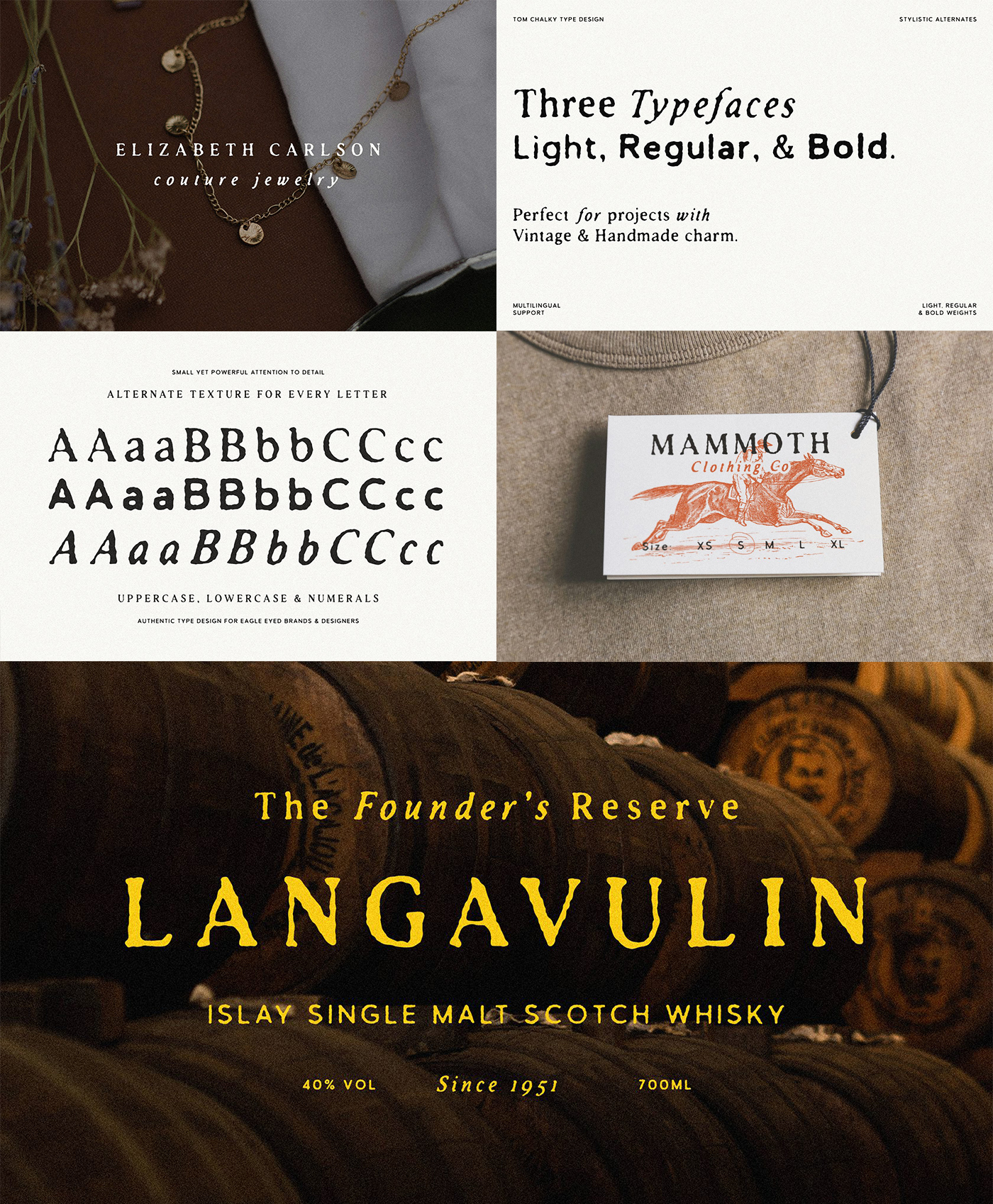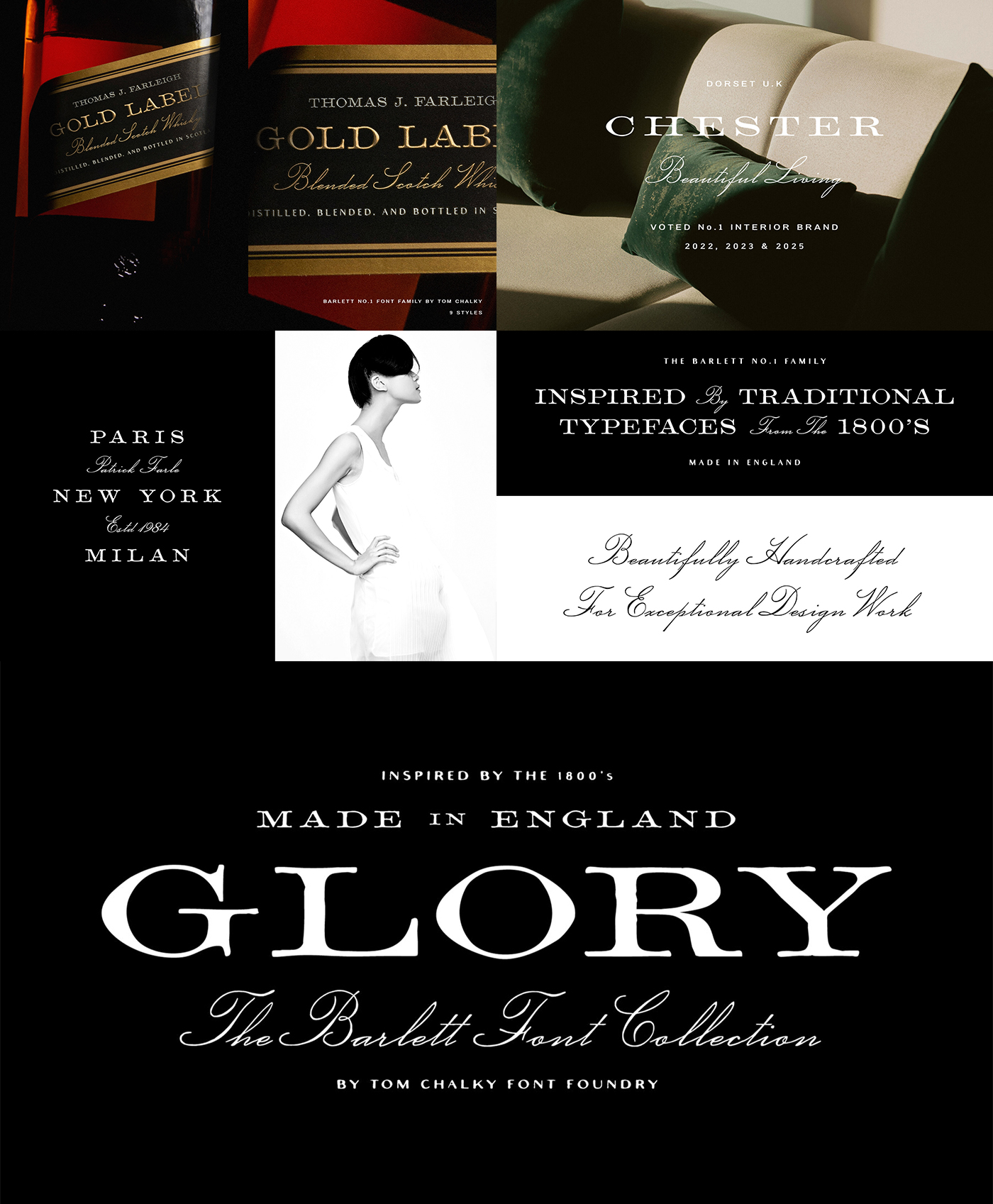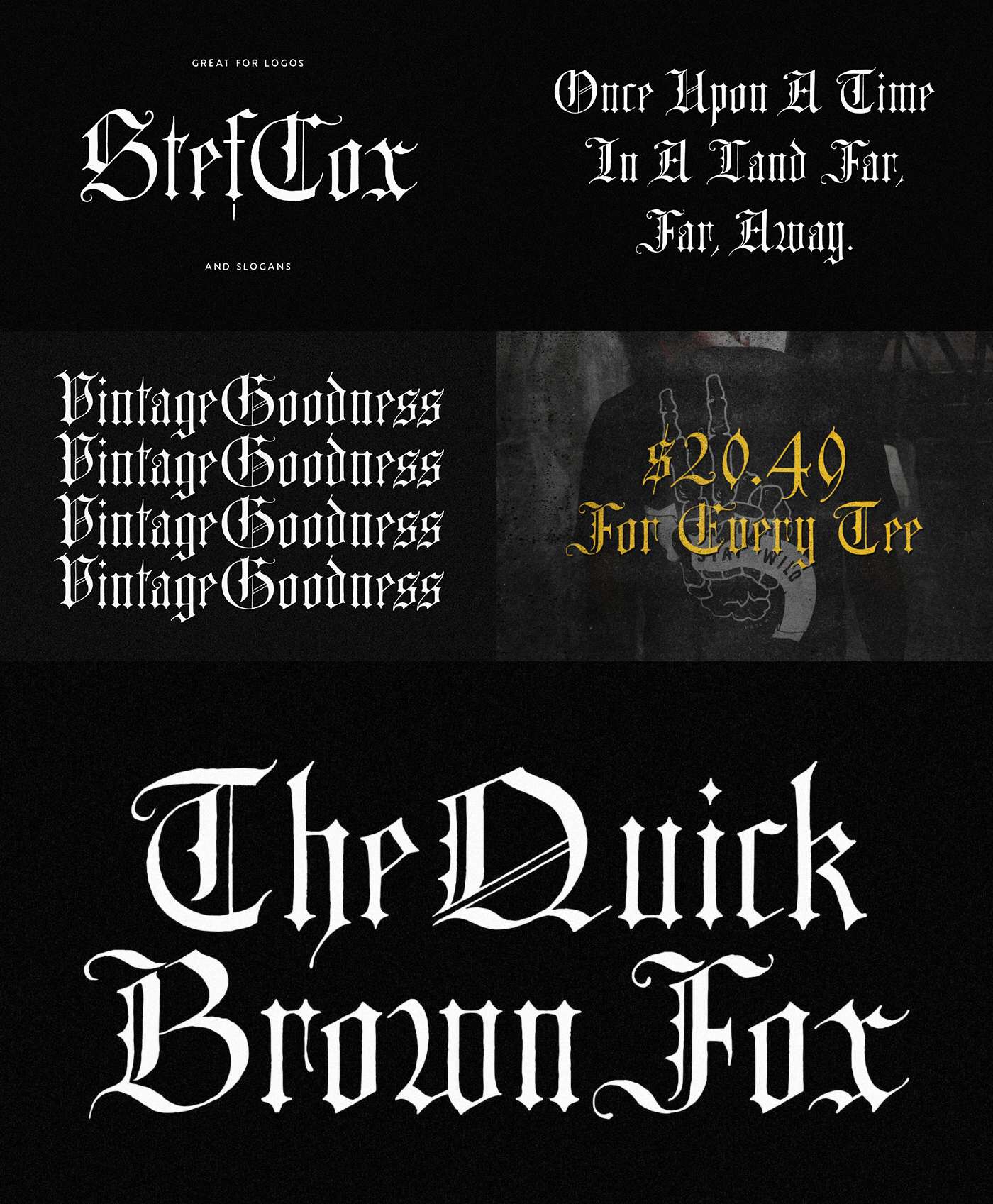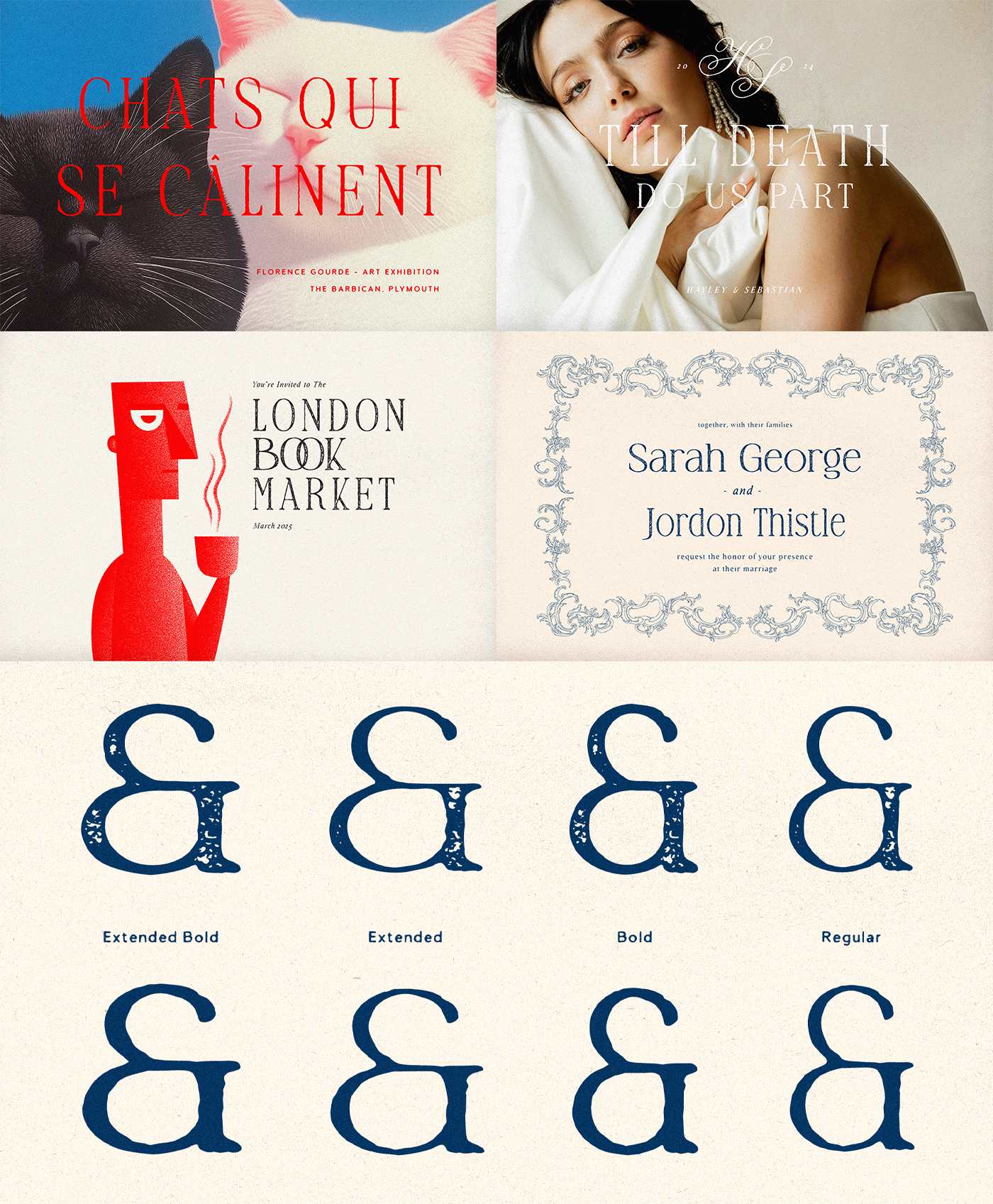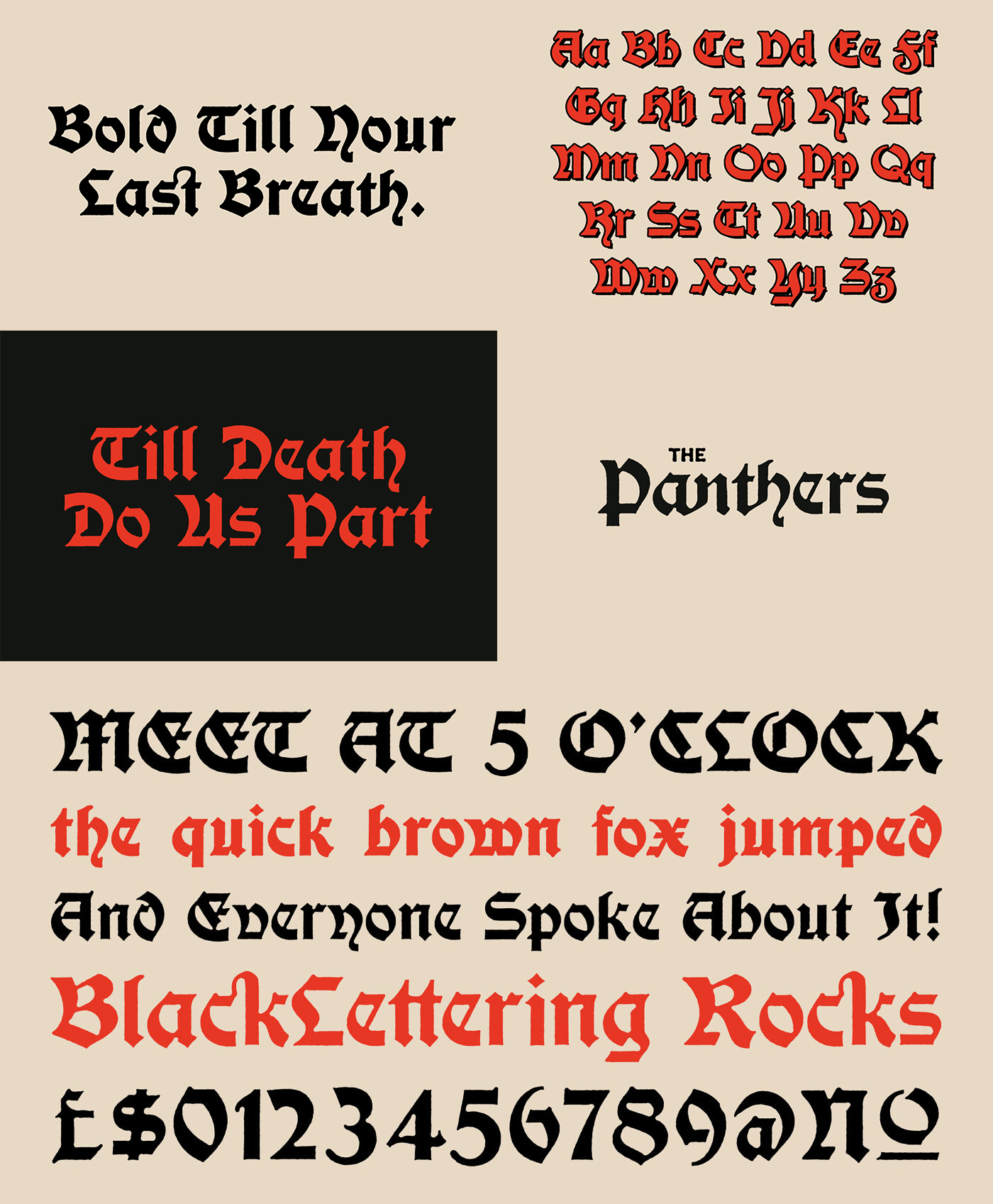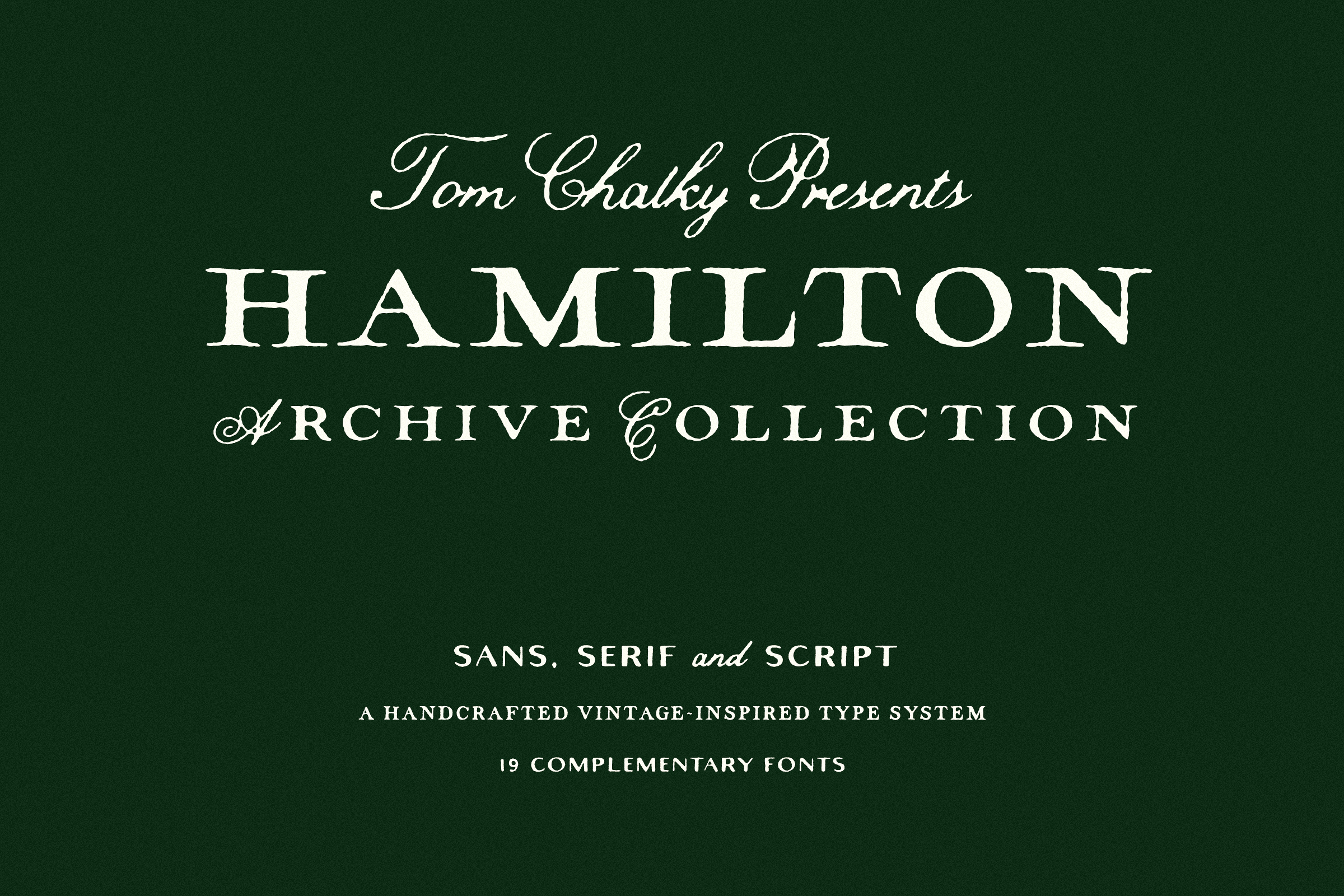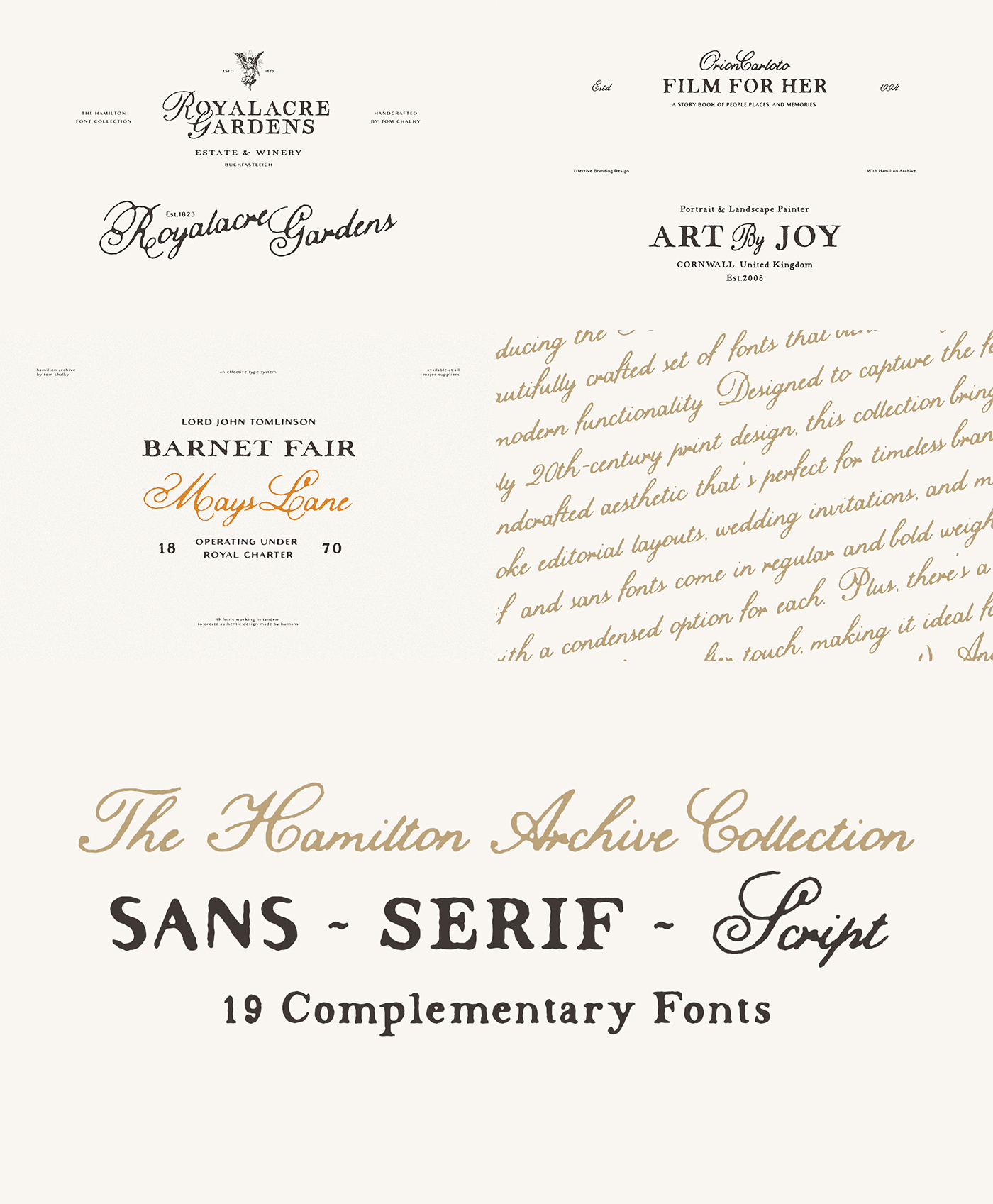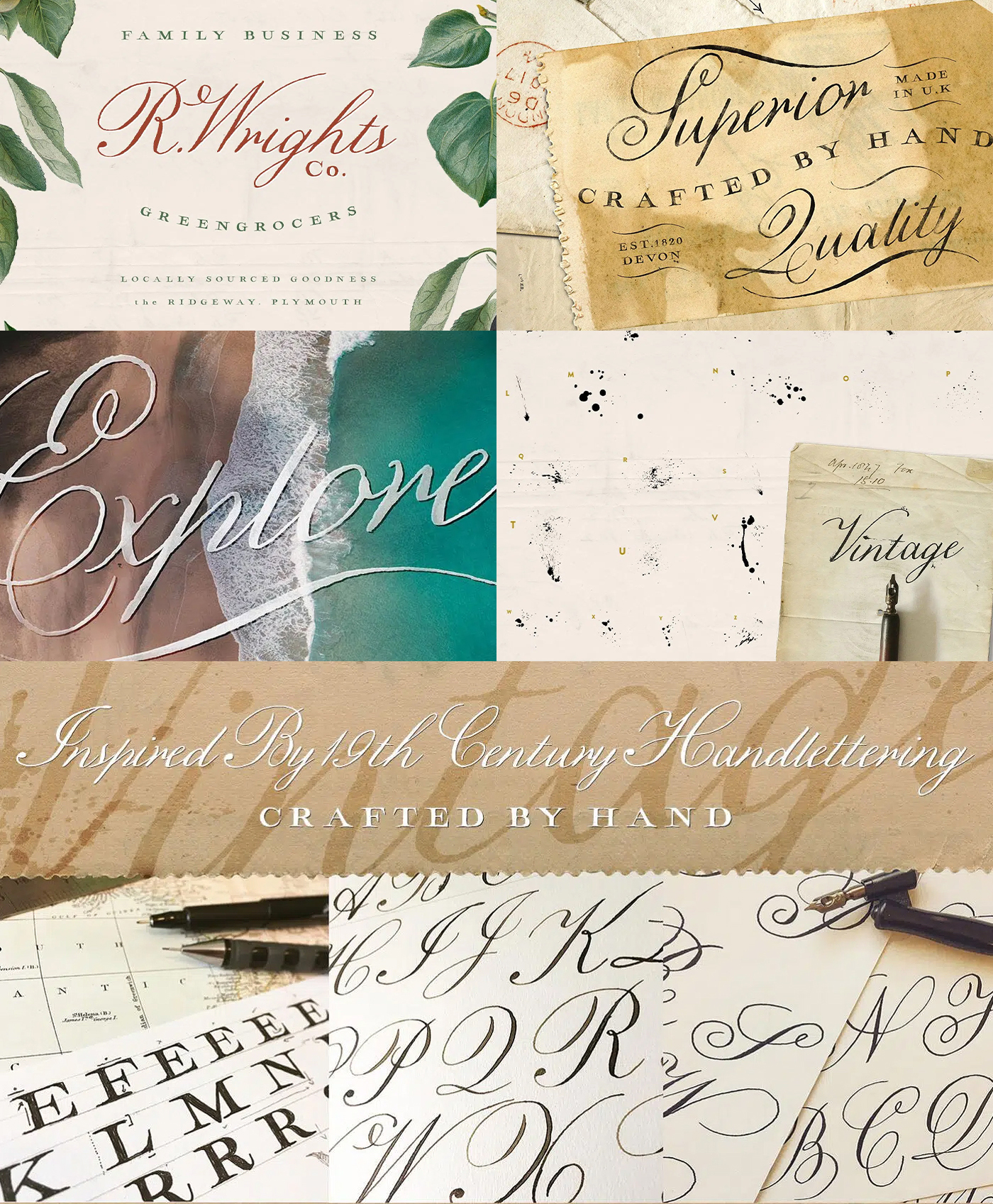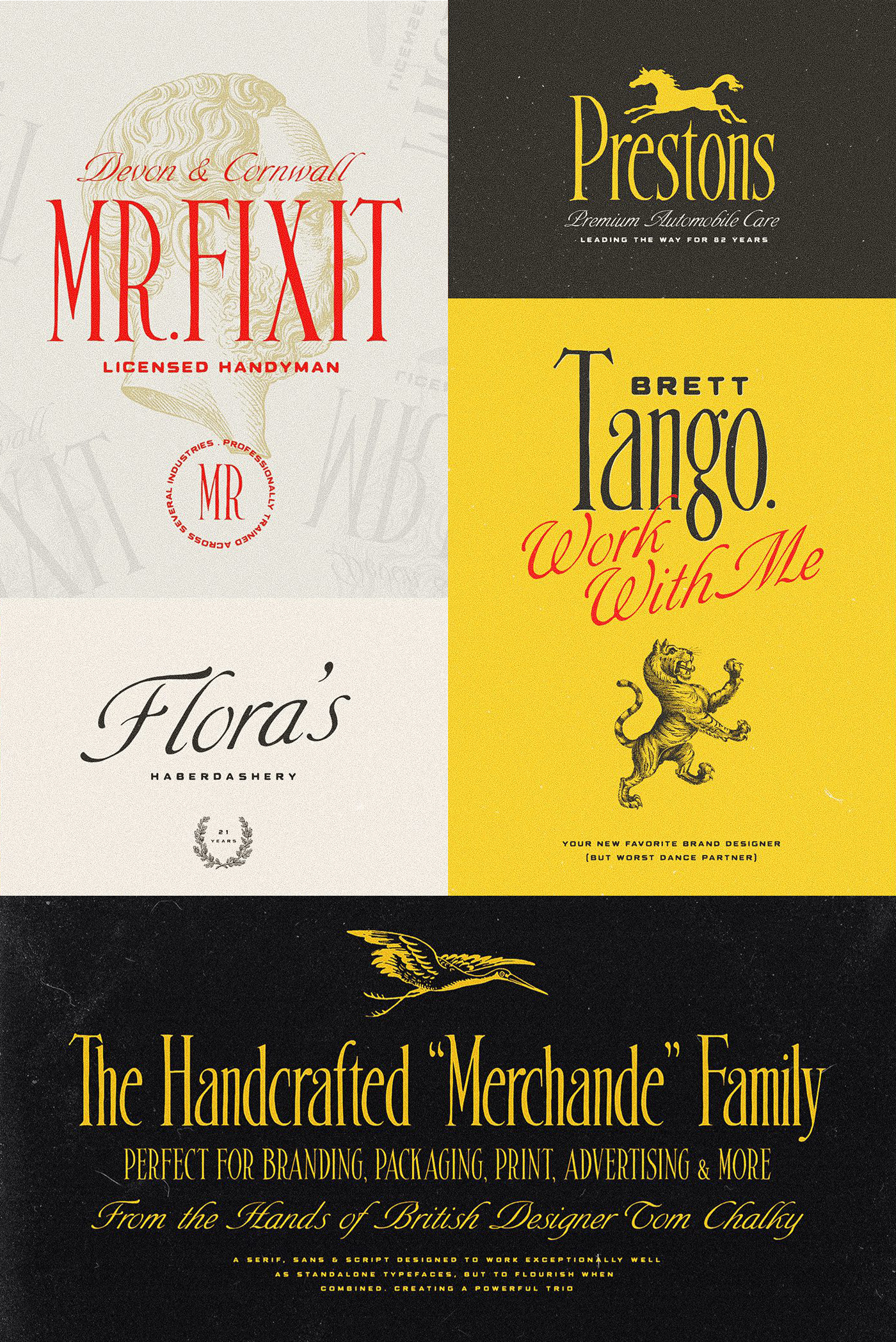
Unlock a world of character and craftsmanship with The Vintage Handcrafted Font Bundle – a carefully curated collection of fonts designed to bring a timeless, tactile feel to your work. Whether you’re designing logos, branding, packaging, invitations, or editorial layouts, this bundle delivers authentic vintage charm with the flexibility of modern font families.
From distressed serifs and refined italics to bold blackletters and rugged sans-serifs, each typeface is handcrafted with subtle imperfections and intentional flair. These fonts weren’t made to blend in – they’re built to stand out, while working beautifully together.
Whether you’re designing for heritage brands, rustic packaging, editorial layouts, or modern-vintage aesthetics, this bundle gives you the tools to create with soul and sophistication.
Barlett No.1 is a premium handcrafted font family that blends traditional charm with modern functionality. Inspired by 1800s English typefaces, this 9-style collection includes a range of serif styles and an elegant complementary script – all designed to bring a sense of character, imperfection, and manmade authenticity to premium design work.
TC Seraphine blends classic serif structure with a hint of human warmth, giving each letter a subtle, organic feel. Whether you’re working on branding, editorial layouts, or packaging, this versatile family can adapt to a wide range of styles and projects!
Brookleigh Archive – where rustic charm meets refined sophistication. This versatile font family is perfect for projects seeking a touch of authenticity and elegance, whether it’s for wedding invitations, logos, branding, packaging, and more.
TC Hamilton Archive – a beautifully crafted set of fonts that blend vintage charm with modern functionality. Designed to capture the feel of early 20th-century print design, this collection brings a handcrafted aesthetic that’s perfect for timeless branding, bespoke editorial layouts, wedding invitations, and more.
TC Blackcat is a bold reimagining of an 1800s vintage blackletter specimen. With its sharp angles, gothic curves, and a touch of modern refinement, this font balances tradition and versatility. Perfect for projects that demand attention, from branding and packaging to album covers and editorial design.
TC Antiquated – A versatile trio of typefaces, each available in three distinct weights, has been designed to be a wonderful blend of modern and rustic styles.
This collection is ideal for modern branding projects with a vintage twist, rustic wedding invitations and stationery, history-themed design projects, and editorial work! I especially enjoy using these fonts in smaller sizes with wide spacing as displayed throughout the presentation imagery.
TC Merchande – a refined font trio inspired by mid-century typography, crafted to elevate your branding, packaging, and advertising designs. This versatile trio includes a sharp serif, a clean sans, and an elegant script, each designed to work beautifully alone or harmoniously together. From vintage-inspired packaging to sophisticated print layouts, Merchande offers the flexibility to bring a timeless, stylish flair to your projects; Perfect for designers seeking a balance of personality and precision.
TC Wonderling – a robust yet elegant tribute to vintage typography, perfect for projects that demand character and versatility. Drawing inspiration from classic serif typefaces of years past, Wonderling combines timeless elegance with handcrafted charm, resulting in a collection of adaptable fonts suitable for a range of design applications—from logos to invitations, packaging to branding, and everything in between.
TC Grimstone draws from vintage blackletter specimens, bringing together those classic angular shapes with softer, rounded edges for a look that feels both old-world and fresh. It’s got a modern medieval vibe that works perfectly for anything from logos and branding to posters and album covers.
TC Hamilton – Add an extra layer of 19th-century style to your design work with the original Hamilton Font family. Within this family you will find; A beautifully handcrafted script font loaded with a decorative set of stylistic alternatives and perfect imperfections, a vintage map inspired serif that looks great both on its own and when paired with its cursive partner, a set of detailed ink splats (available as a font and as vectors) to add even more creativity when using any of the Hamilton fonts, and last but not least a flourish font (also available as vectors) to help bring your work to life!